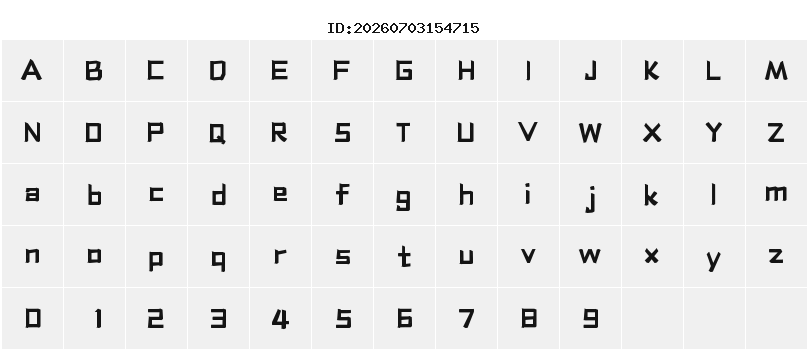
• Font Name: 360-上首游记体
• Font ID: 360-SSYouJi:Version 6.00
• Full Font Name: 360-上首游记体
• Version: Version 6.00;October 29, 2024;FontCreator 13.0.0.2613 64-bit
• PostScript Name: 360SSYouJi
• Character Count: 7569
• Manufacturer: 上首造字
About 360-上首游记体.ttf
360-上首游记体.ttf is a modern, elegant sans-serif font designed for ultimate readability and visual harmony. Perfect for branding, headlines, web design, and print materials.